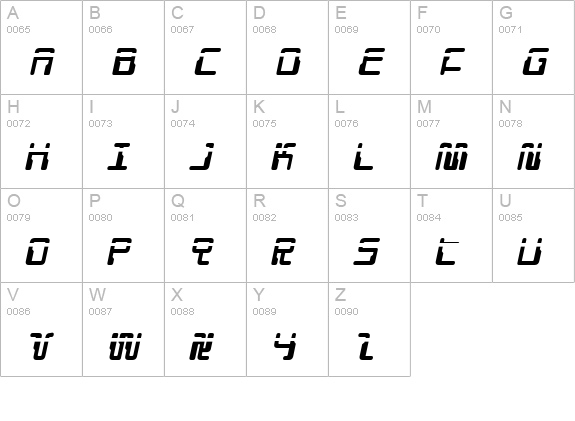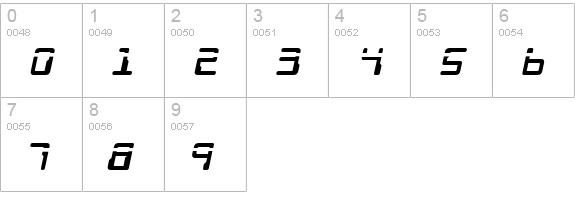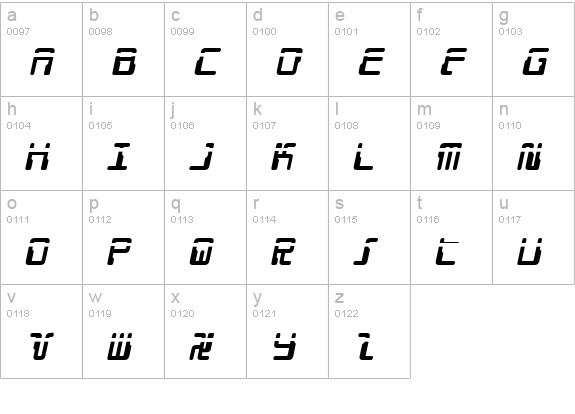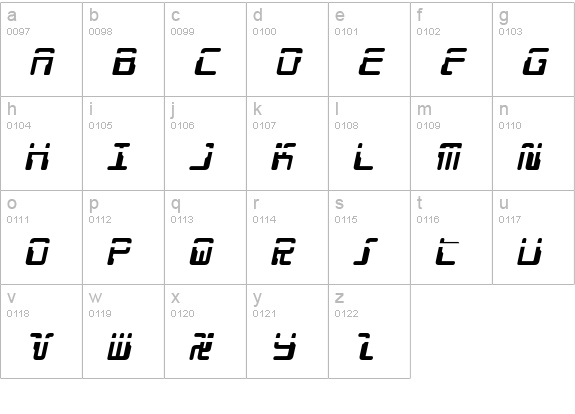
Droid Lover Laser Italic is a distinctive, italic variant in the Droid typeface family \xE2\x80\x94 well suited to design and typography projects.
Introducing Droid Lover Laser Italic font, a sleek and modern typeface perfect for adding a futuristic touch to your designs. This font features sharp, laser-inspired details that make it stand out from the crowd. The italic design adds a dynamic and stylish flair to any project, making it ideal for branding, logo design, and digital displays. Best of all, Droid Lover Laser Italic font is available for free download at FontsMarket.com. Simply visit the website to get your hands on this versatile and eye-catching font today. Whether you're a graphic designer, web developer, or just a font enthusiast, Droid Lover Laser Italic font is sure to become a valuable addition to your font library. Download it now and elevate your designs with this cutting-edge typeface.